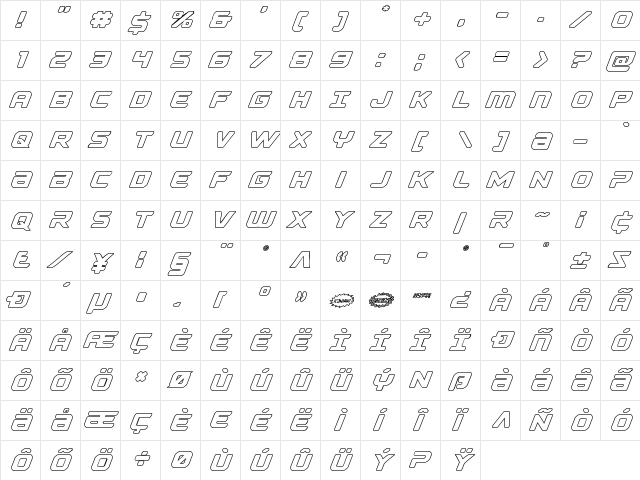
Falcon Punch Outline Outline
Design Context for Falcon Punch Outline Typeface
Falcon Punch Outline is built around its visual character rather than neutral utility — its distinctive forms are designed to make an impression at display sizes.
Font Pairing: Pair with a clean neutral sans-serif for body copy to let Falcon Punch Outline's character lead without overwhelming the composition.
Pro Tip: Use Falcon Punch Outline exclusively at display sizes — it was designed to be seen, not read at length. Let a neutral companion handle body copy.